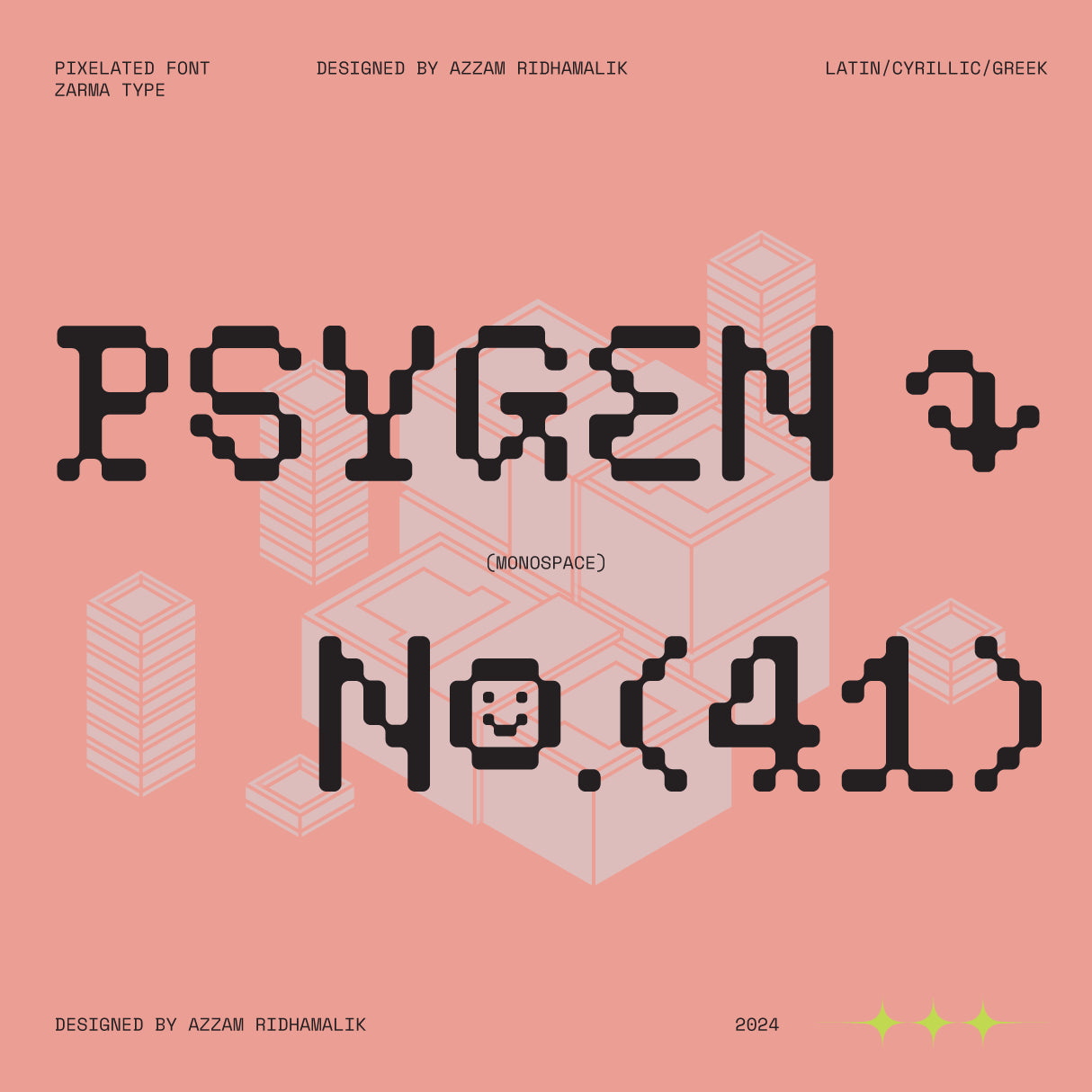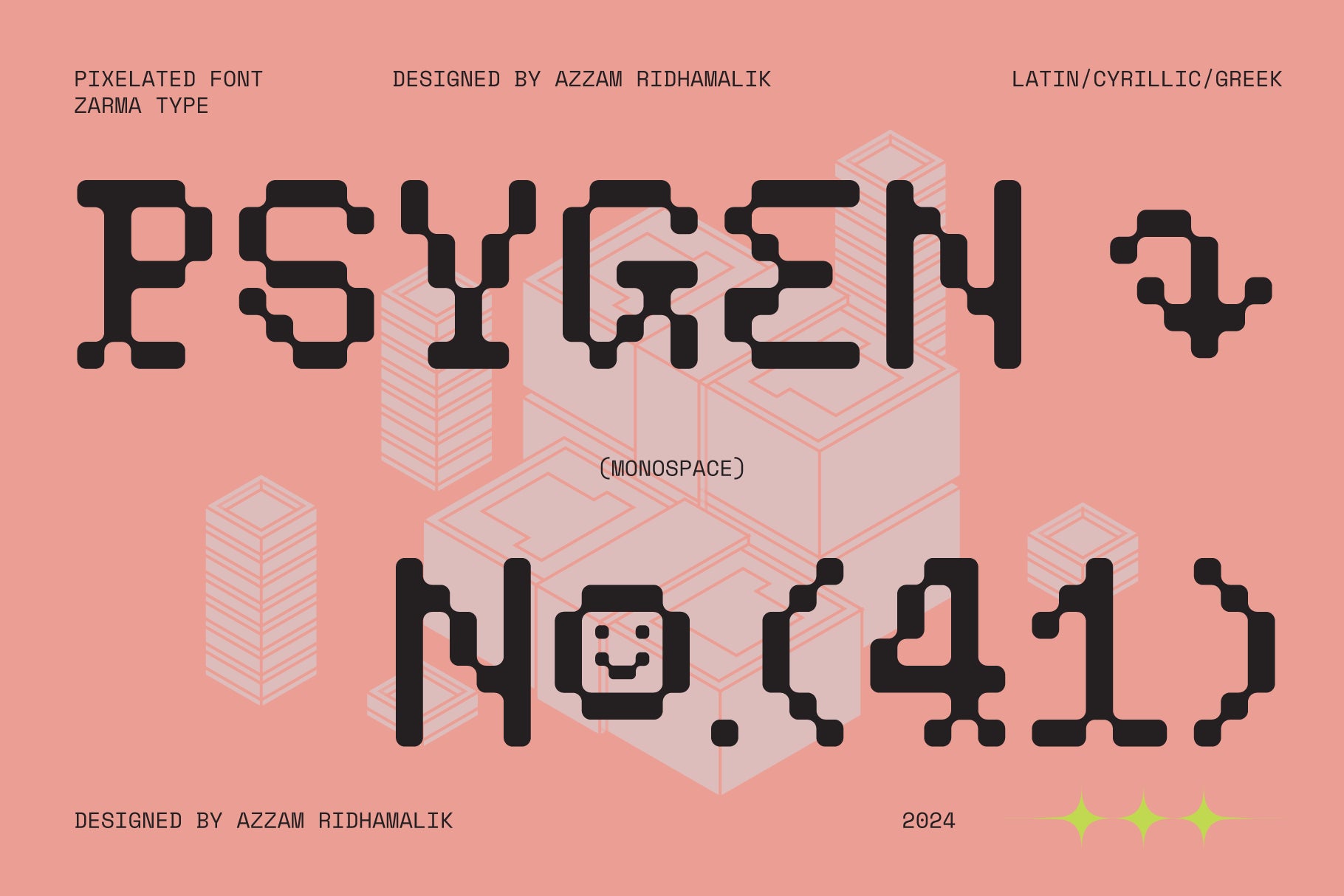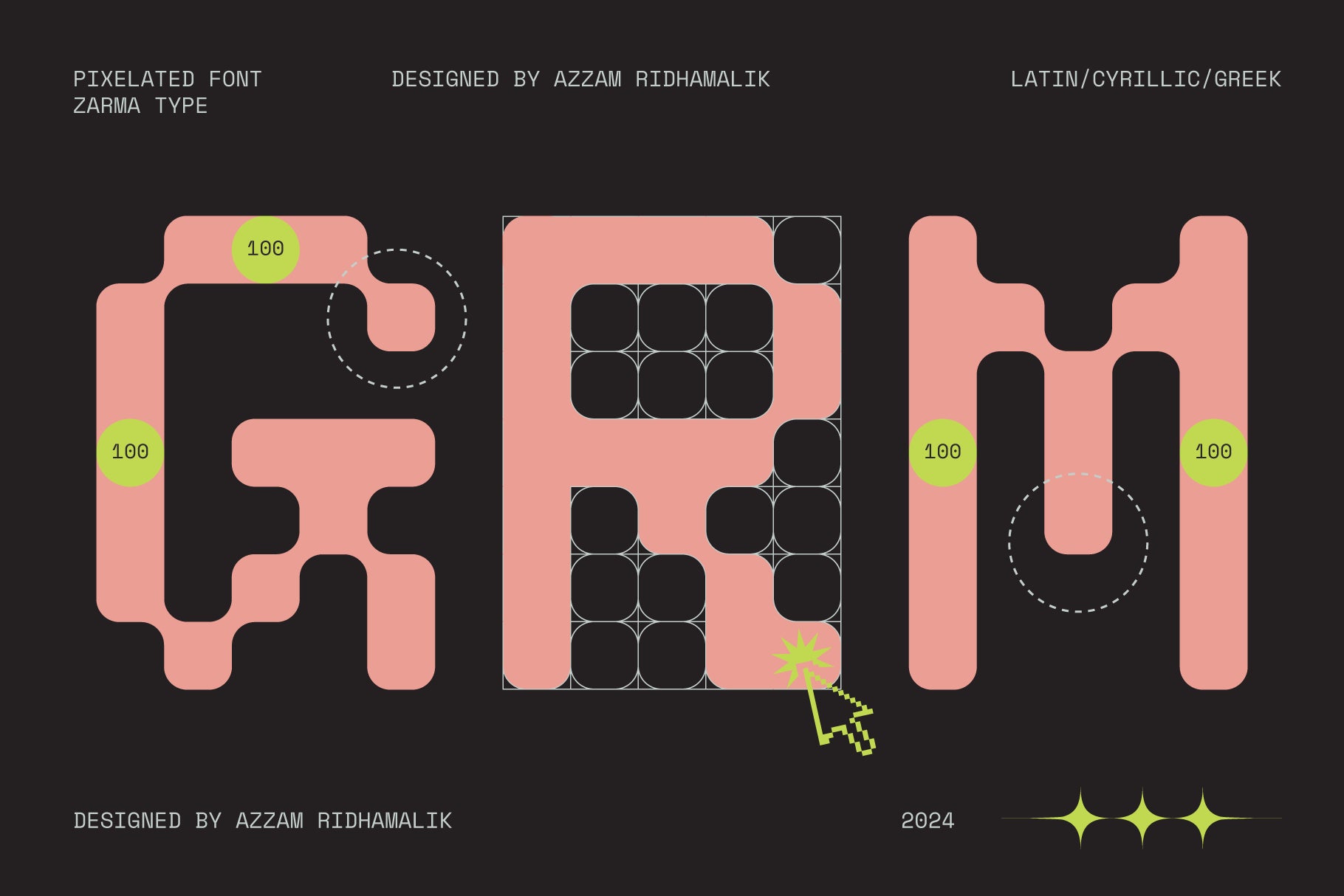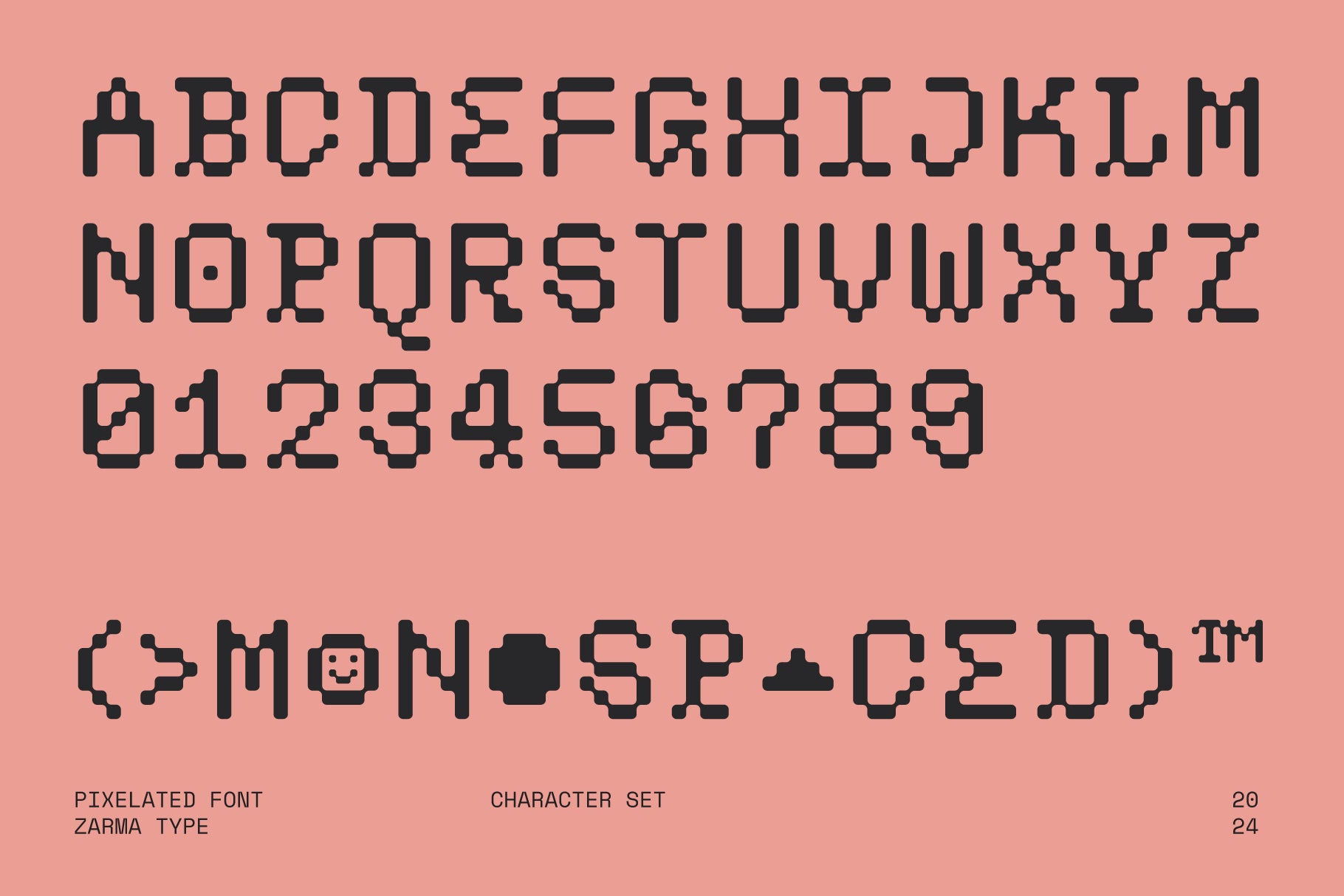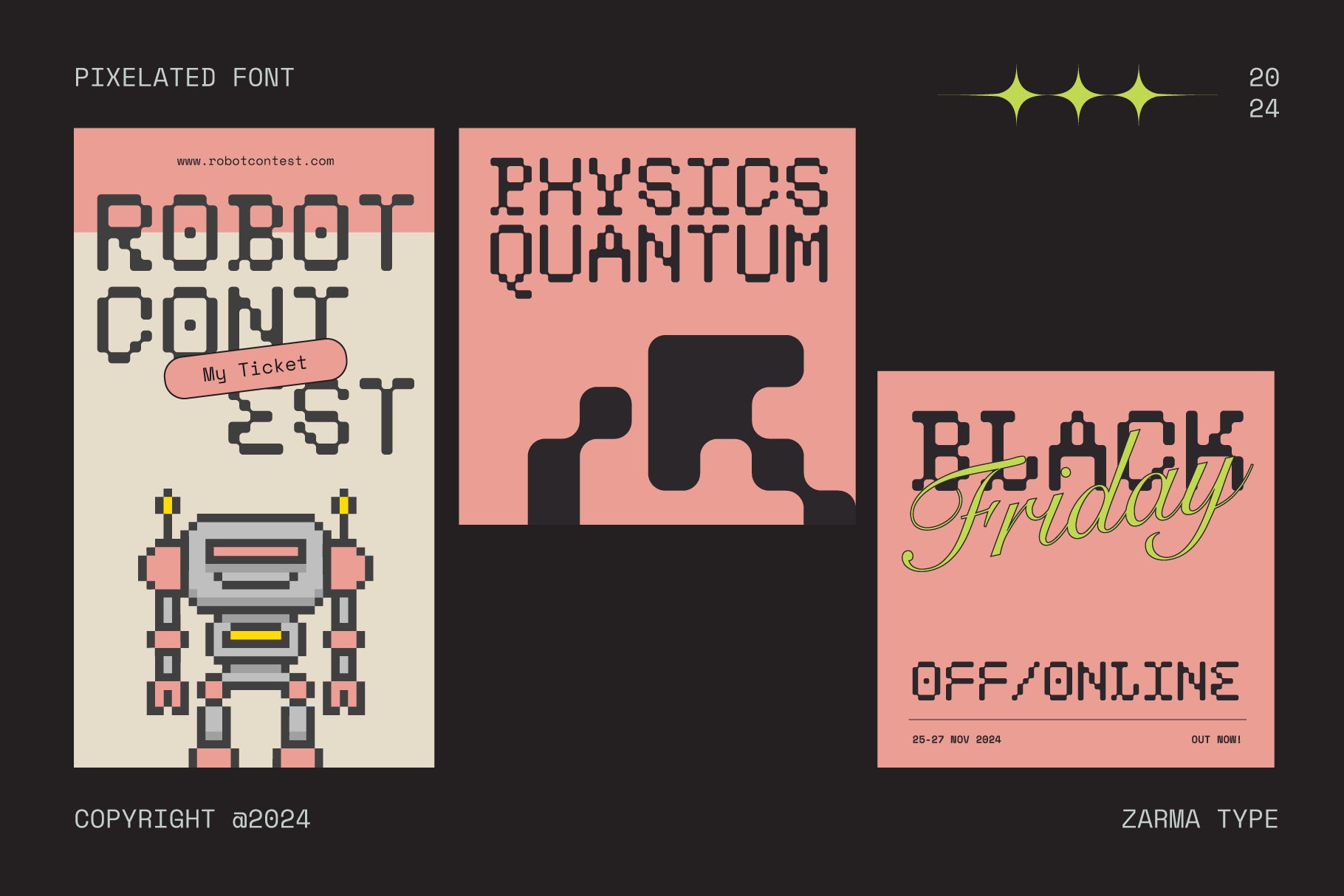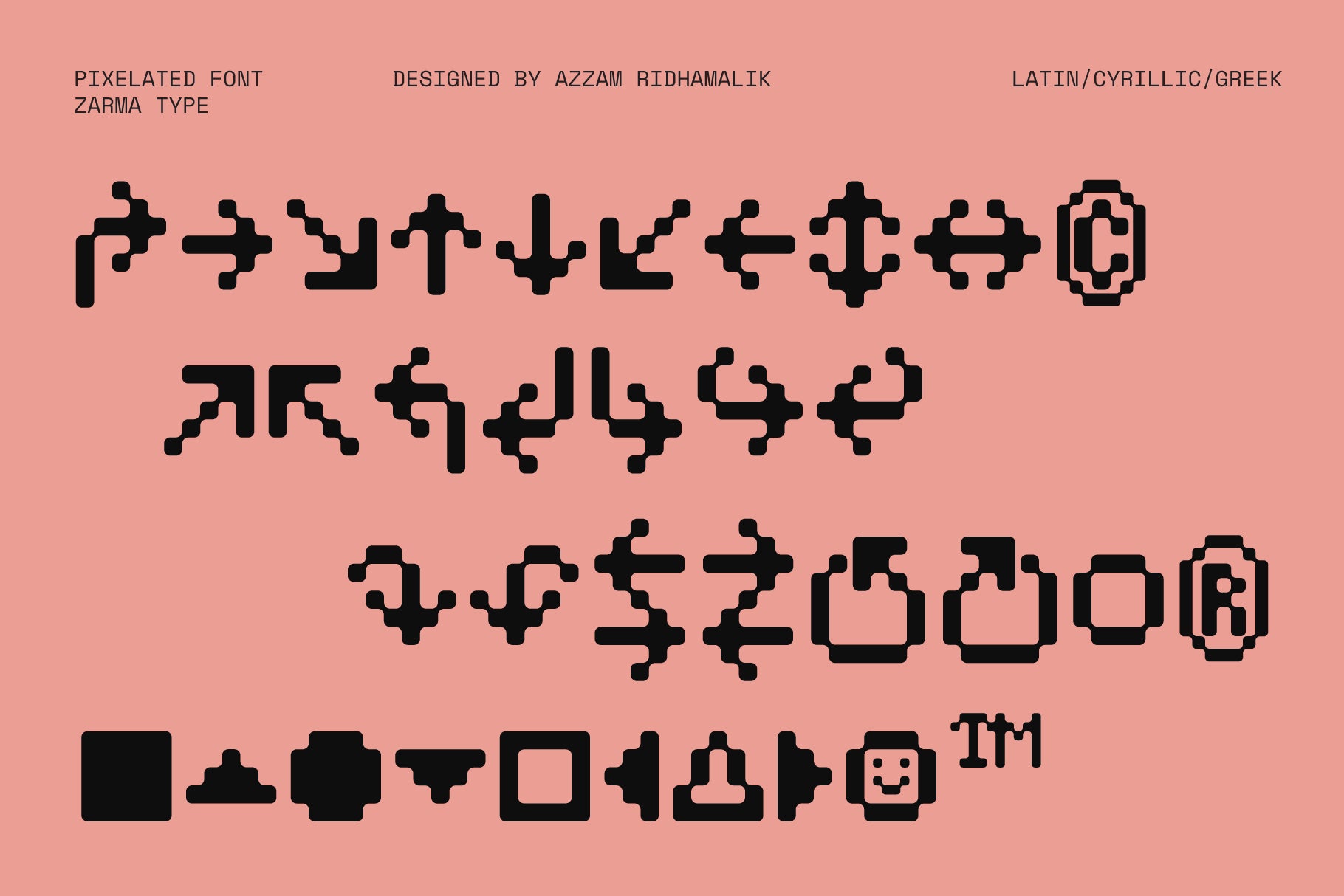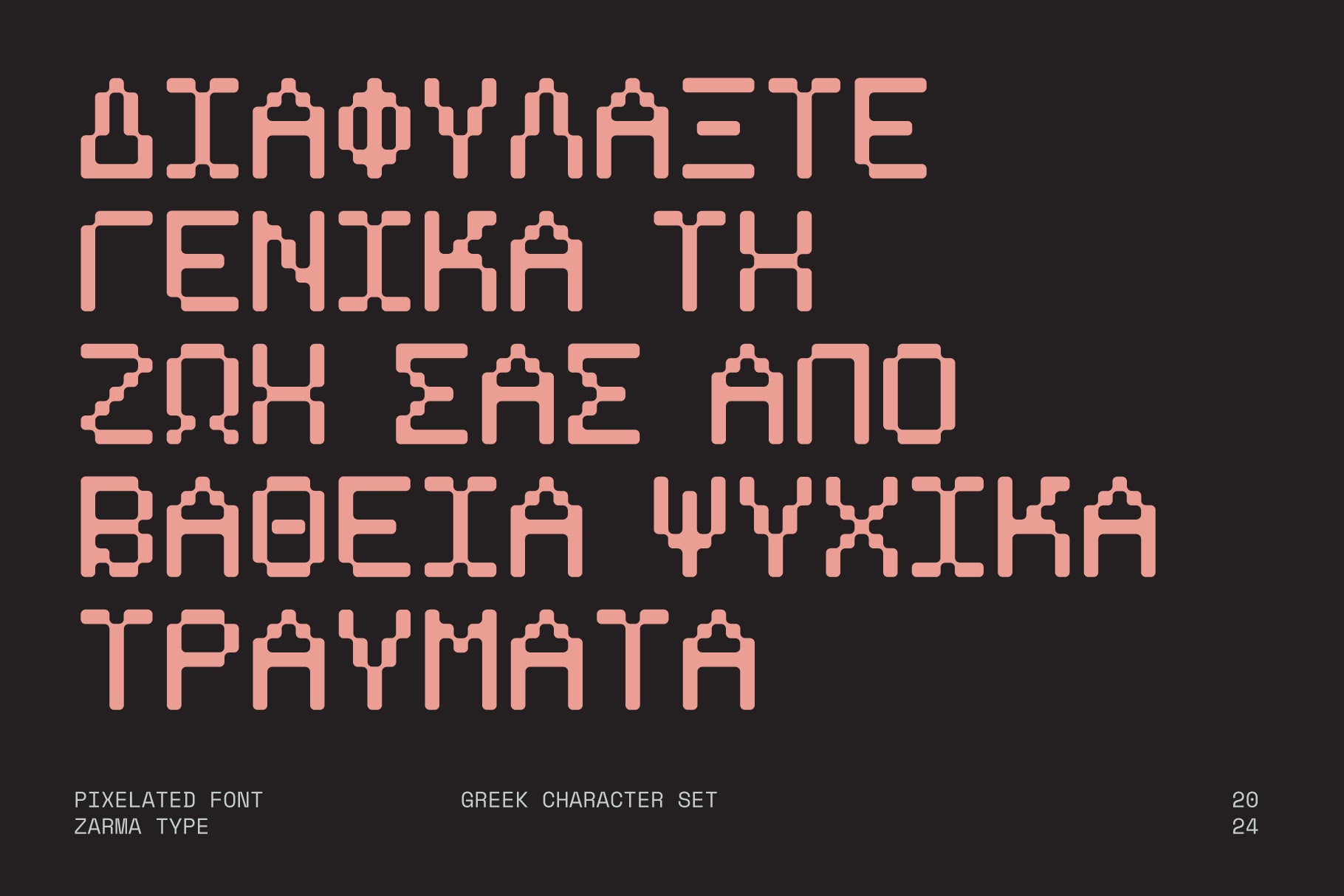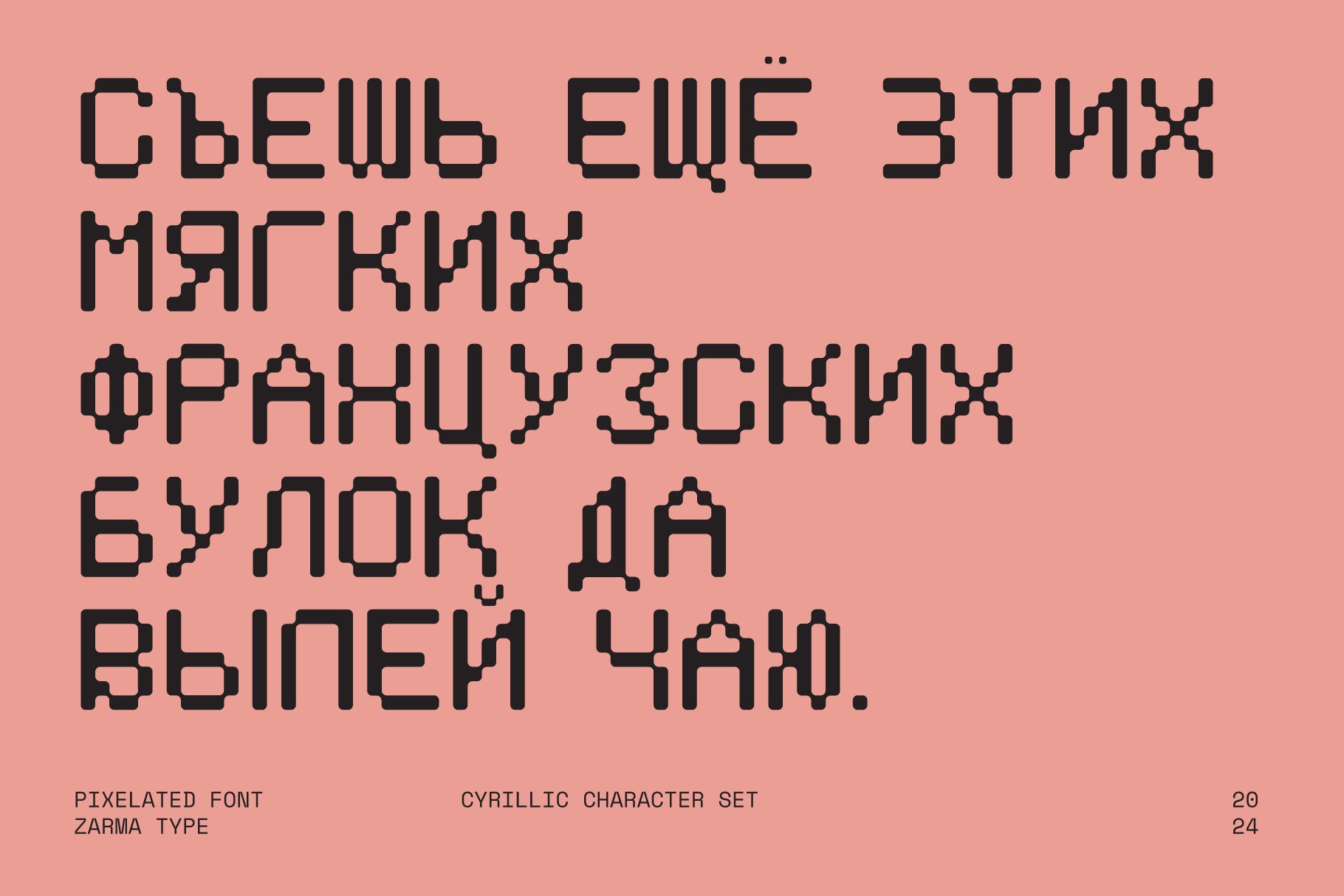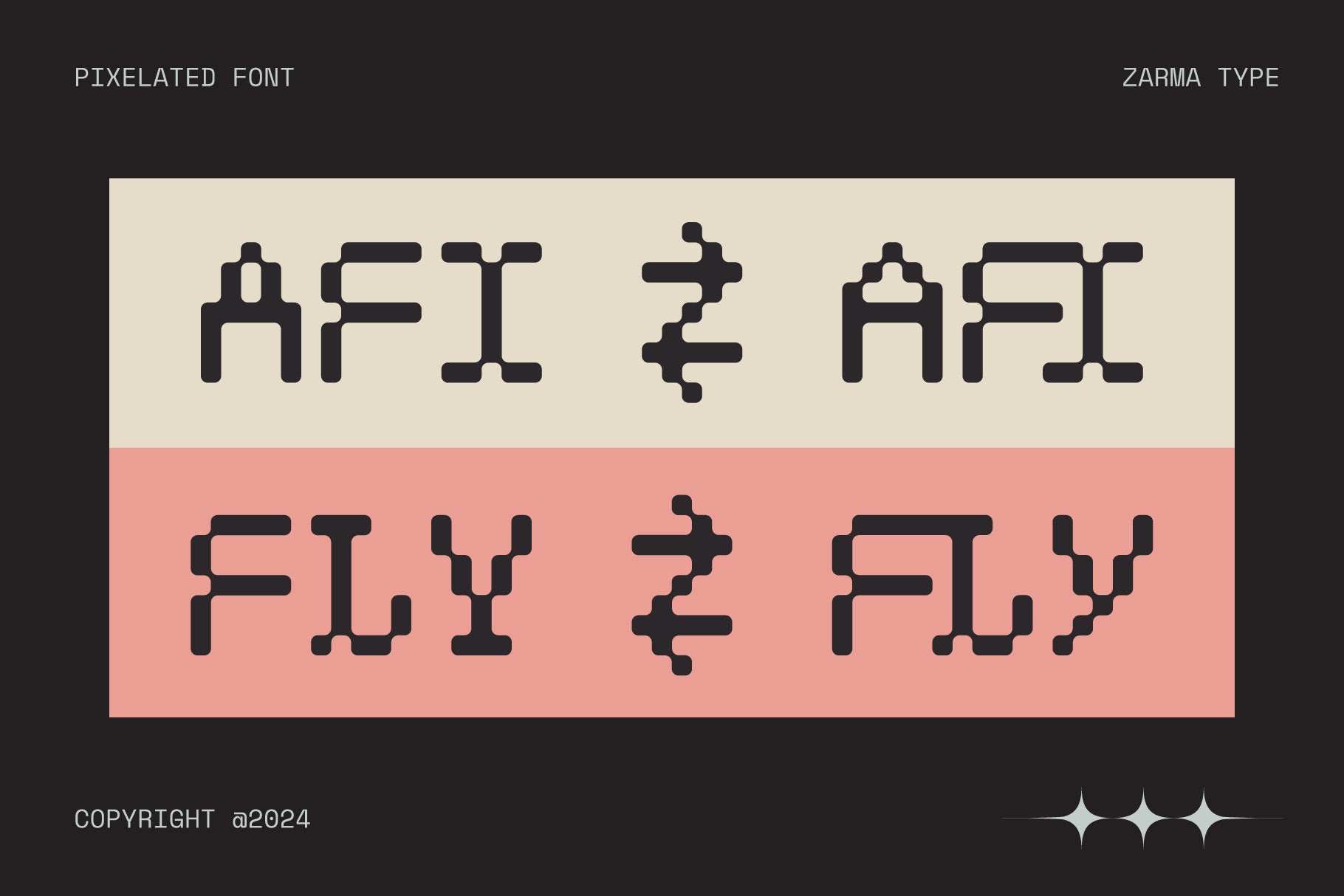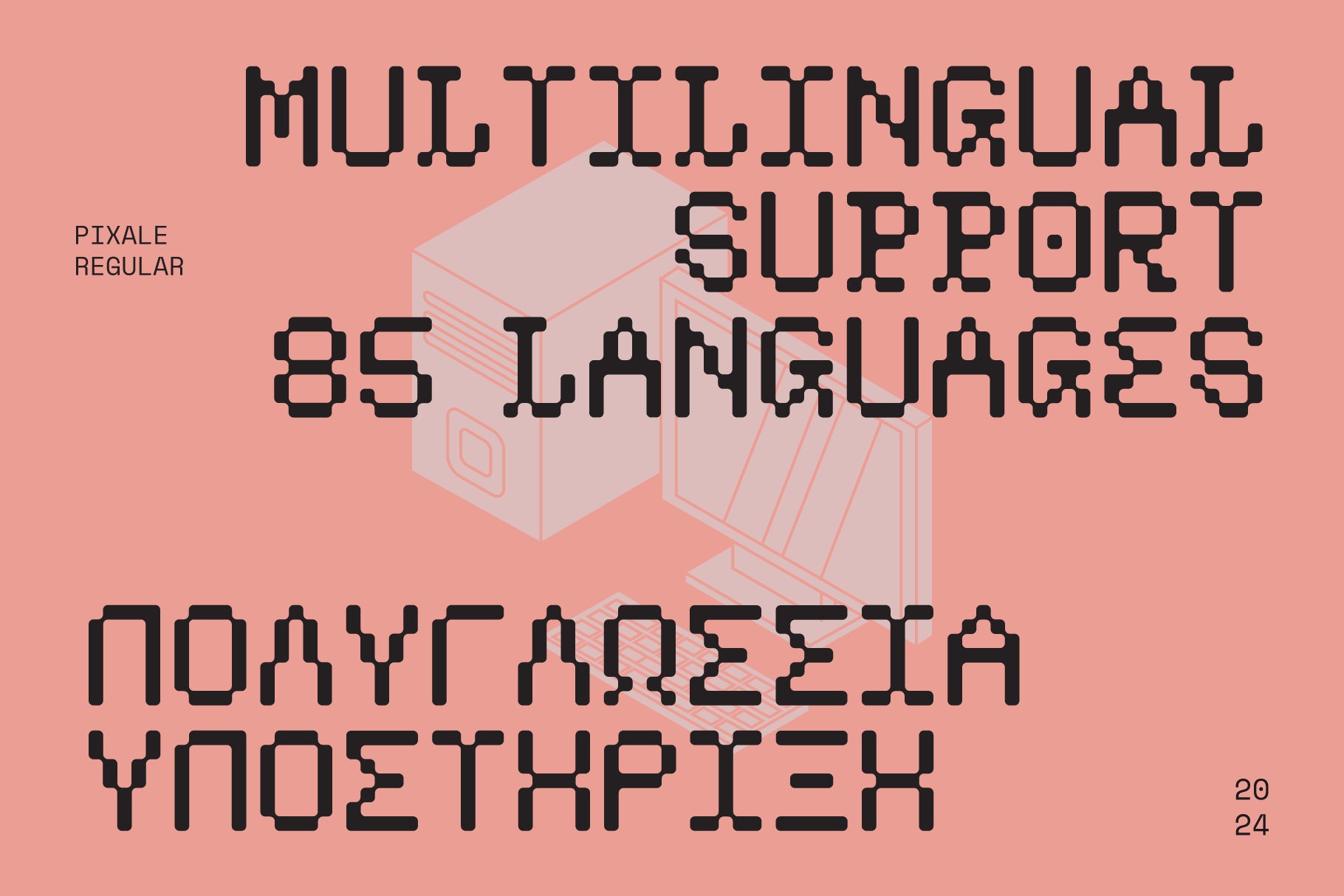
Psygen Font
Zarma Type
Psygen is a bold Modern Pixel Font that reimagines classic pixel typography with a clean, contemporary monospace design. Created for digital creatives, it combines retro gaming aesthetics with modern precision, making it an excellent choice for gaming UI, branding, technology projects, social media, posters, logos, and digital interfaces. Its All Caps letterforms feature consistent geometric proportions, while the monospace structure ensures perfect alignment and readability across creative applications.
Designed for both style and functionality, Psygen includes numbers, punctuation, unique symbols, directional arrows, OpenType features, and comprehensive OpenType Latin Pro, Greek, and Cyrillic character sets. Supporting 85+ languages and available in OTF, TTF, WOFF, and WOFF2 formats, Psygen delivers lightweight performance, broad multilingual compatibility, and pixel-perfect typography for designers seeking a modern take on retro-inspired display fonts.
Psygen Font is a bold modern pixel font that features a clean, contemporary monospace design with All Caps letterforms and consistent geometric proportions. It includes numbers, punctuation, unique symbols, directional arrows, and supports comprehensive OpenType Latin, Greek, and Cyrillic character sets, making it compatible with 85+ languages, and is available in OTF, TTF, WOFF, and WOFF2 formats.